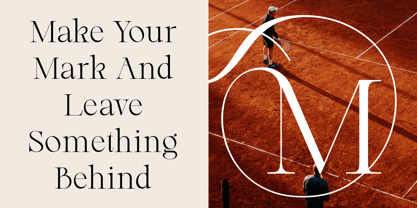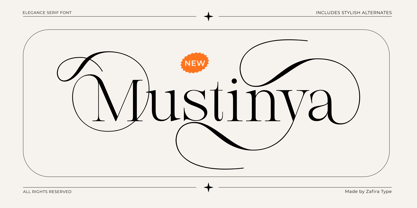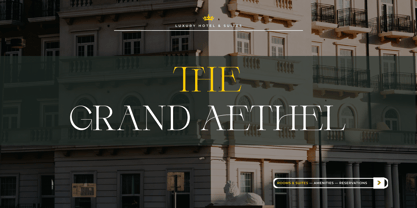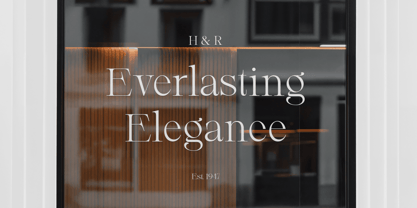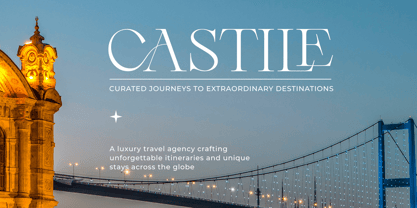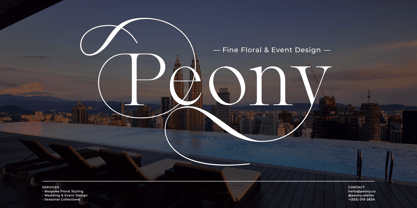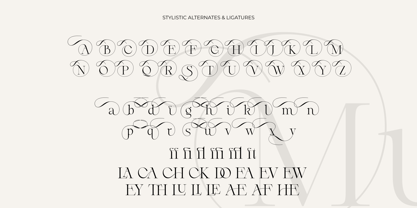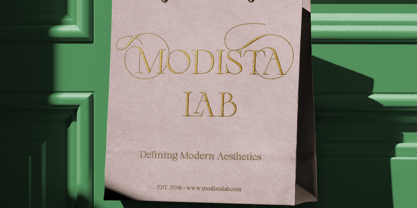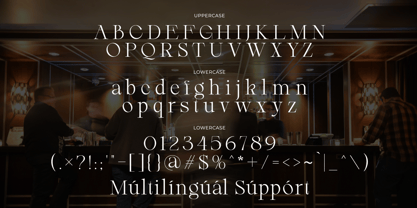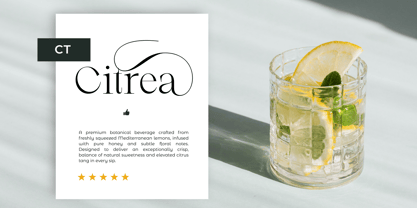
Mustinya
by Zafira Type
Mustinya is a refined and timeless serif font designed to bring elegance, grace, and subtle sophistication to your creative projects. Crafted with delicate curves and high visual contrast, Mustinya seamlessly blends classic typographic aesthetics with a clean modern feel.
Designers: Su Hirno
Foundry: Zafira Type